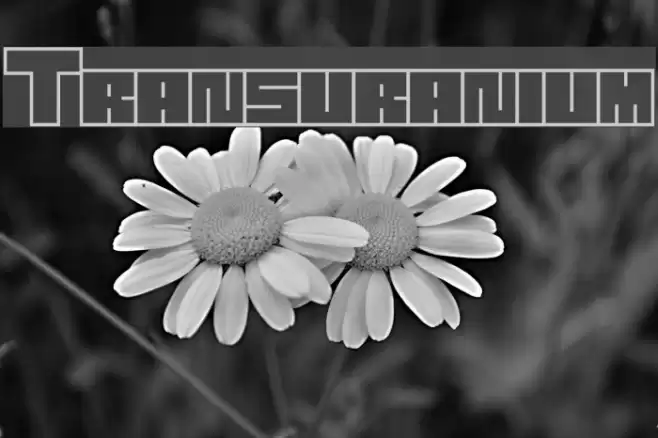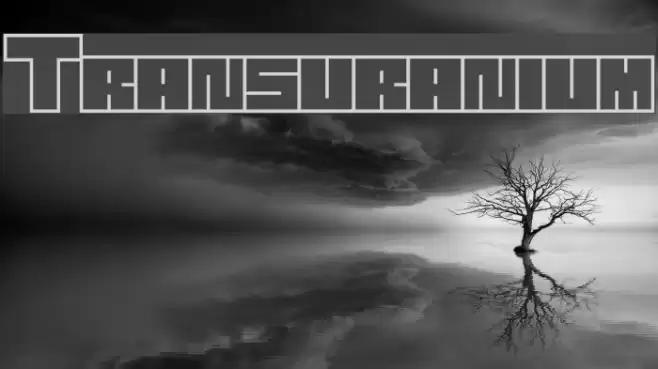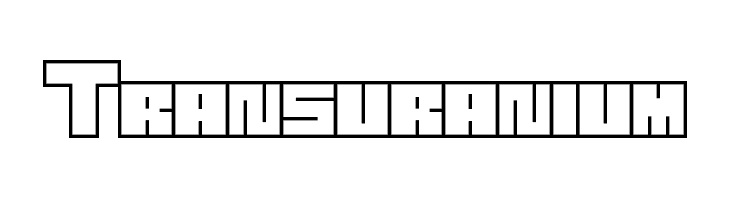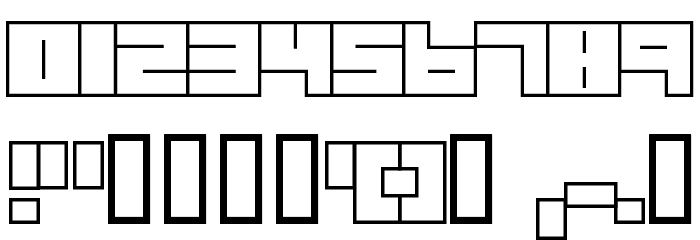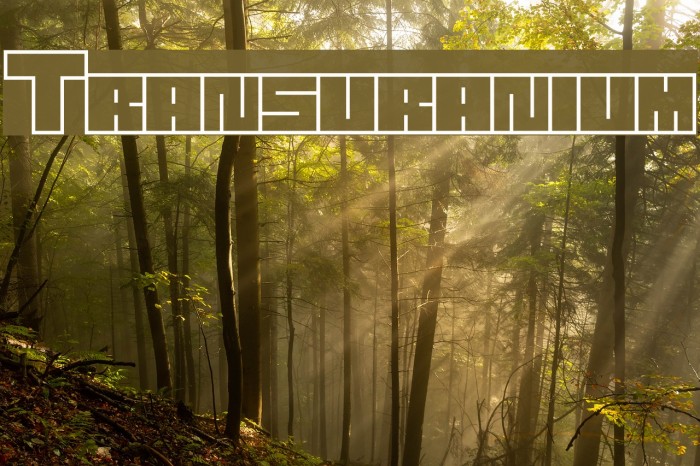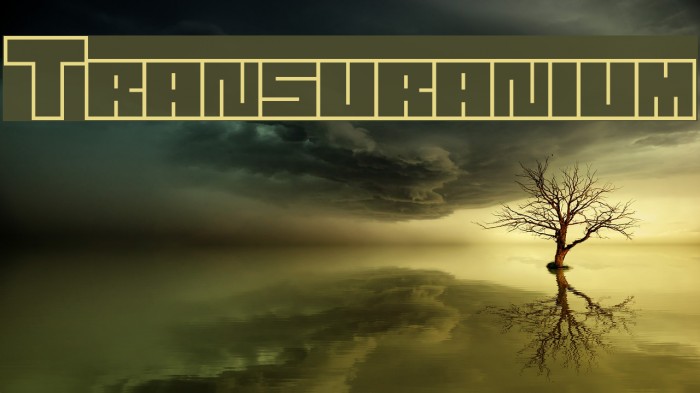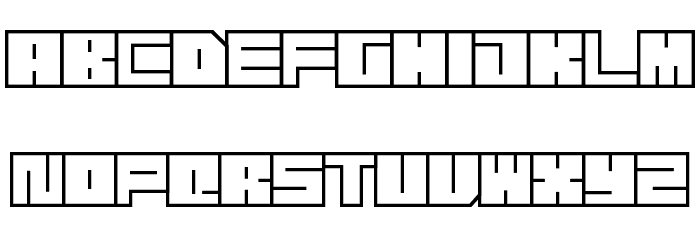
Transuranium Font
Transuranium Description
This font features a bold, geometric design with a futuristic and industrial feel. Each character is constructed with thick, block-like lines that create a sense of strength and solidity. The uppercase letters are uniform in height and width, giving a monospaced appearance, while the lowercase letters maintain the same structural integrity. The numbers and special characters are designed to match the boldness of the alphabet, ensuring consistency across all elements. The font's unique style makes it particularly suitable for projects that require a modern, tech-inspired aesthetic.
A bold, geometric font with a futuristic and industrial design from Outline fonts.
- Overall Style: Futuristic, Industrial